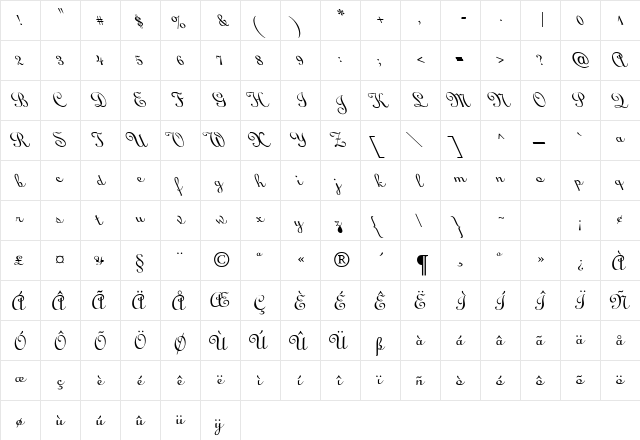
Linoscript Leftie Regular
Design Context for Linoscript Leftie Typeface
Linoscript Leftie brings a calligraphic fluidity to the page — its connecting strokes and expressive curves give it an unmistakably human quality.
Font Pairing: Combine Linoscript Leftie with a simple geometric sans for maximum contrast — the tension between flowing curves and clean structure is a classic typographic pairing.
Pro Tip: Use Linoscript Leftie for short runs of text — names, titles, or taglines. Extended body copy in script faces tires the eye quickly.